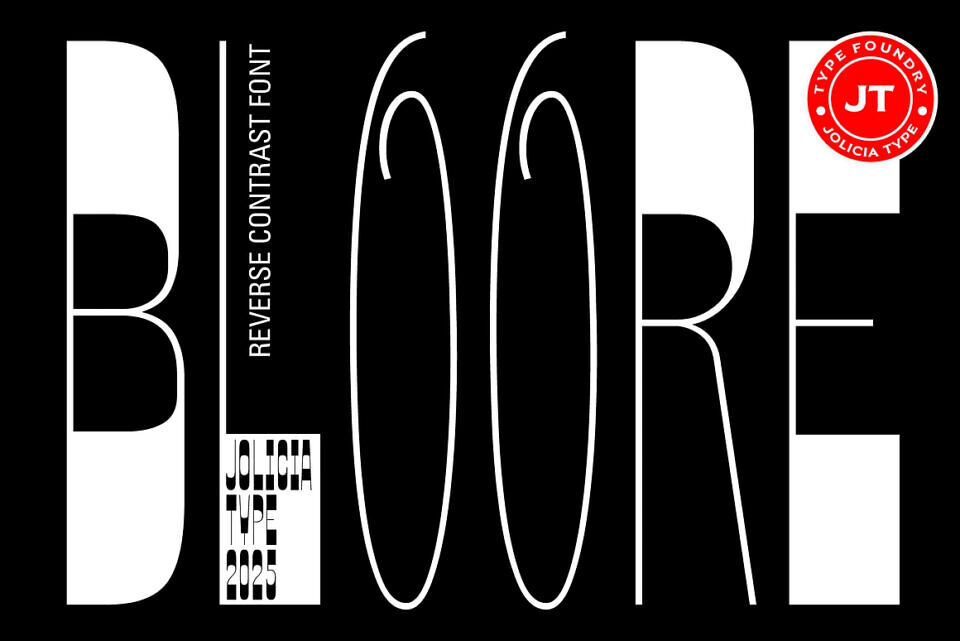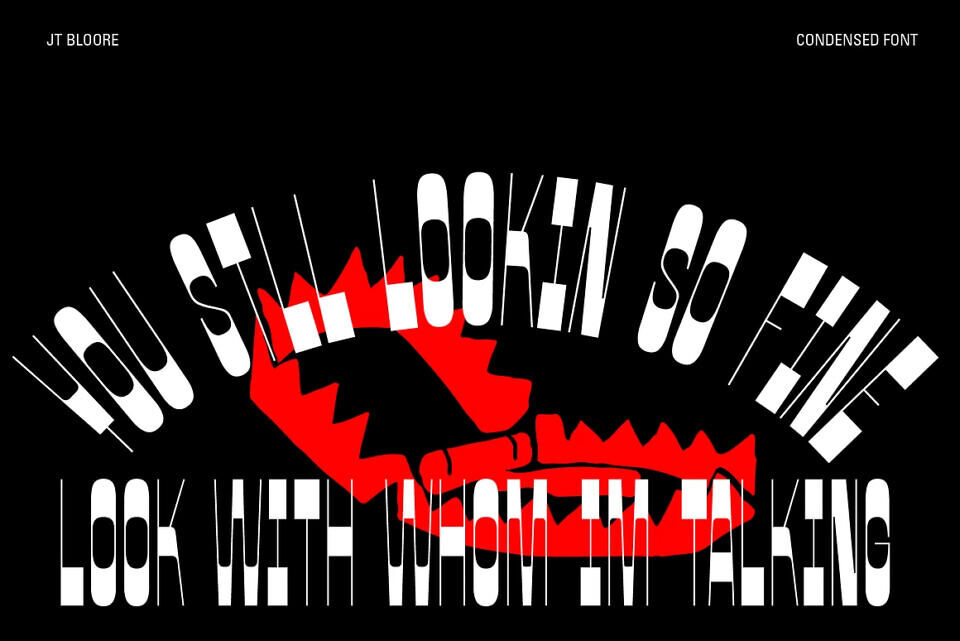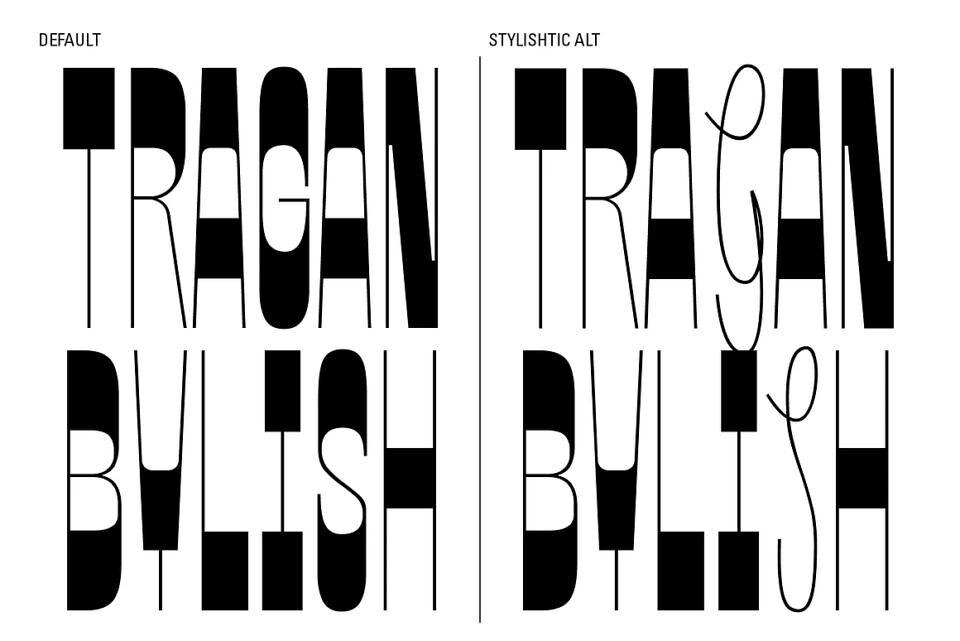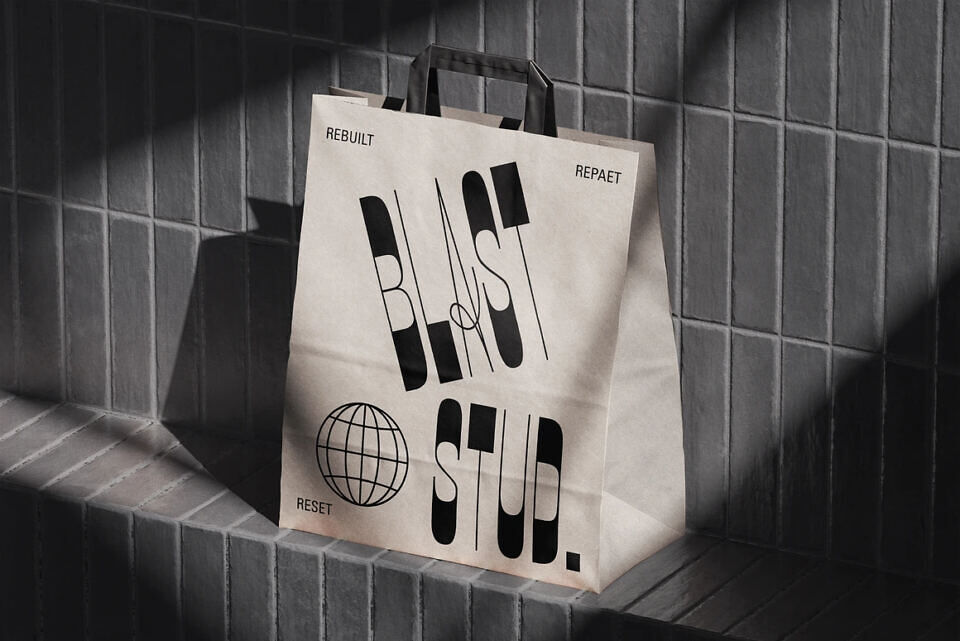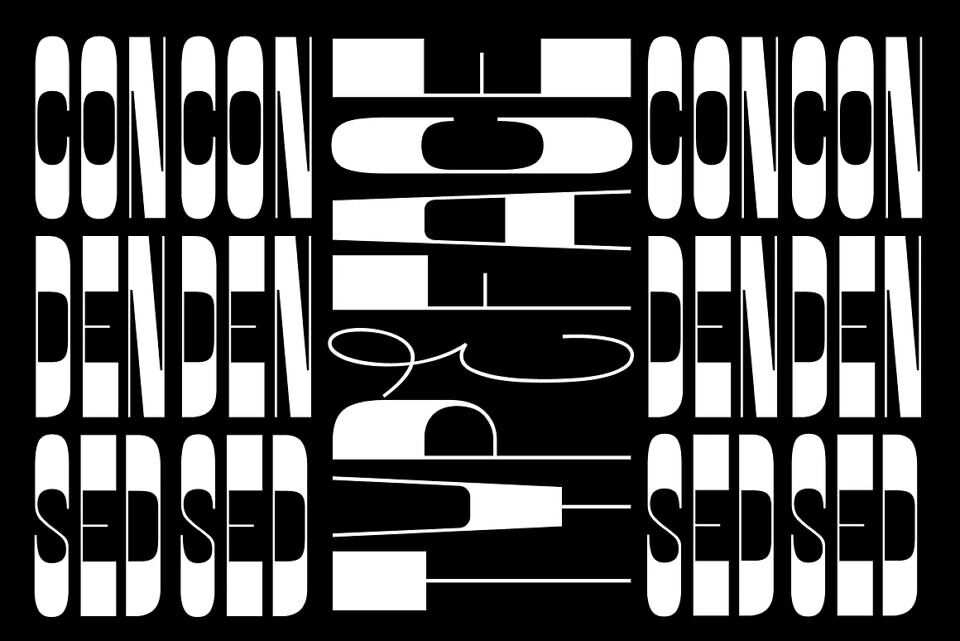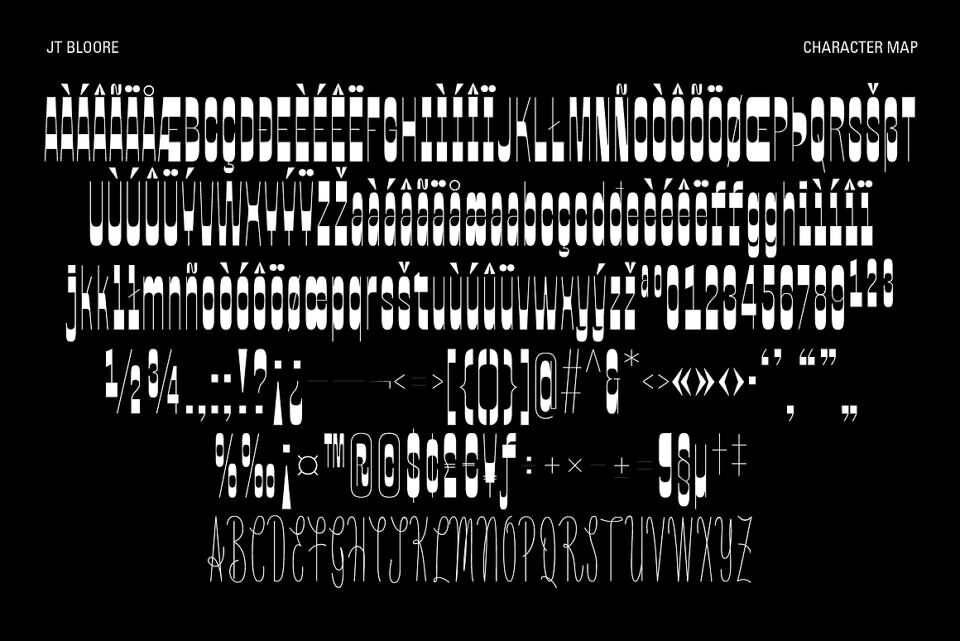
JT Bloore is a high-contrast reverse sans-serif typeface designed with a condensed structure for maximum visual impact. Its sharp vertical tension and narrow proportions make it highly effective for standout headings, bold branding, and expressive editorial layouts.
What sets JT Bloore apart is its unique set of thin handwritten-style uppercase alternates, carefully crafted to introduce an unexpected human touch within a strong, modern framework. This contrast between rigid structure and subtle handwritten character creates a distinctive typographic voice—confident, unconventional, and memorable.
Perfect for headlines, posters, logos, fashion branding, and experimental design, JT Bloore is built to command attention while offering creative flexibility through its alternate characters.